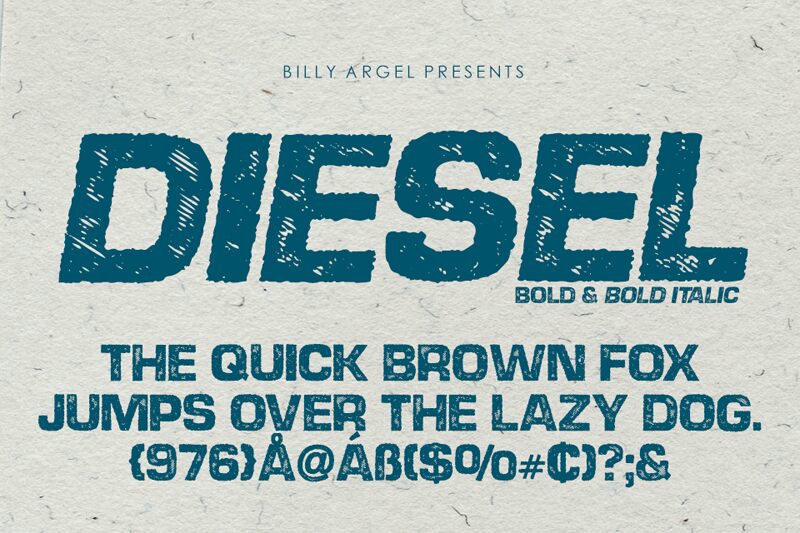
DIESEL ITALIC PERSONAL USE Bold Italic
DIESEL Italic Bold Italic by Billy Argel Fonts is the perfect choice for projects that require a bold and edgy display font. Its eroded style gives any design a touch of grittiness and rawness, making it ideal for posters, album covers, and logos. The semi-expanded width of the font also allows for easy readability without sacrificing impact. Whether you're looking to create a vintage-inspired design or something more modern and edgy, DIESEL Italic Bold Italic is the versatile typeface that will take your project to the next level.